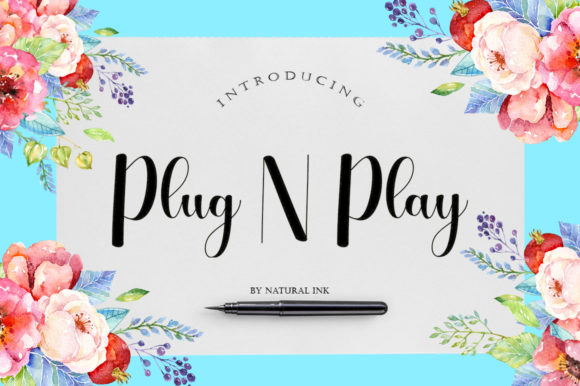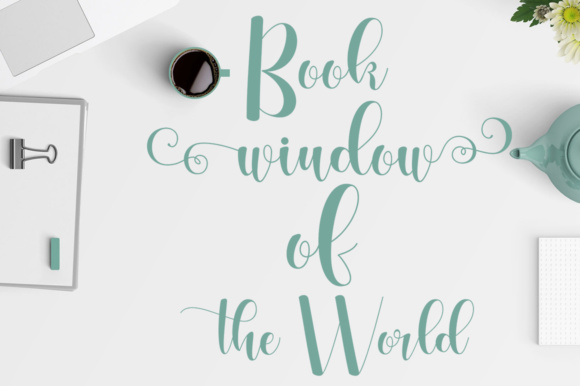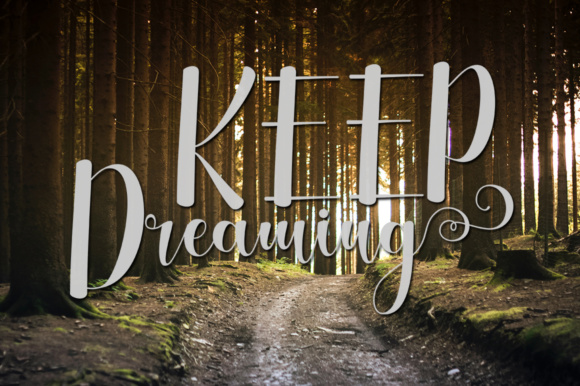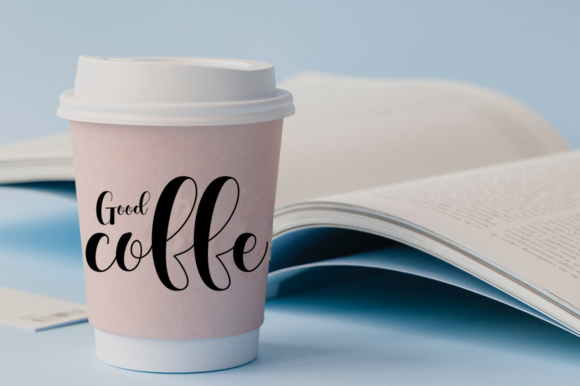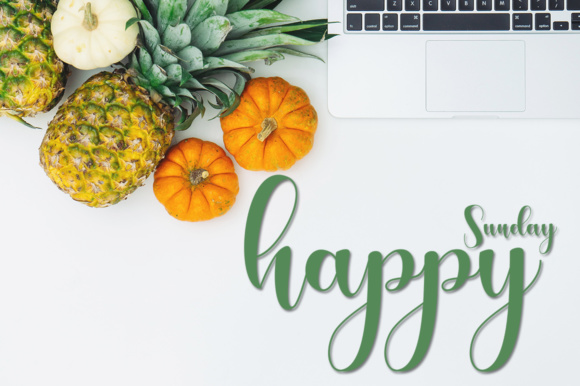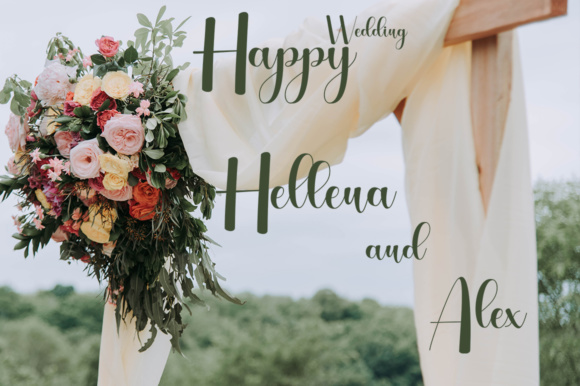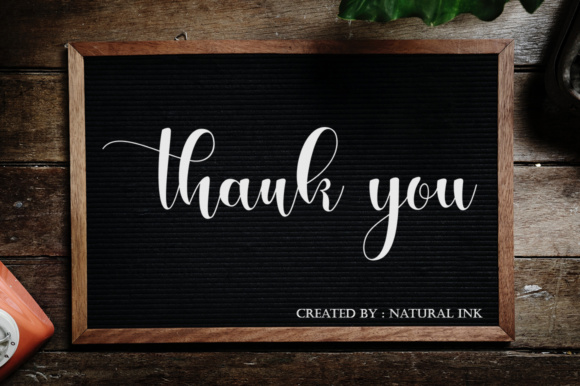
Plug N Play Font
About Plug N Play Font
The Plug N Play is a fresh & modern script with a handmade calligraphy style. It has decorative characters and a dancing baseline which makes it perfect for invitations, greeting cards, branding materials, business cards, quotes, posters, and much more!